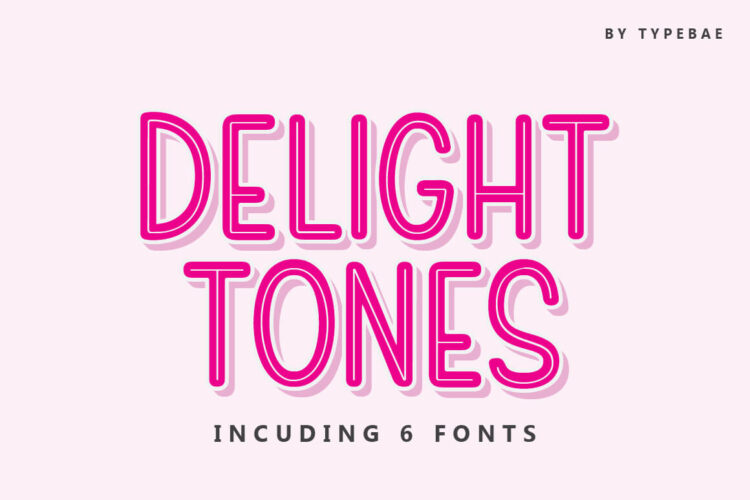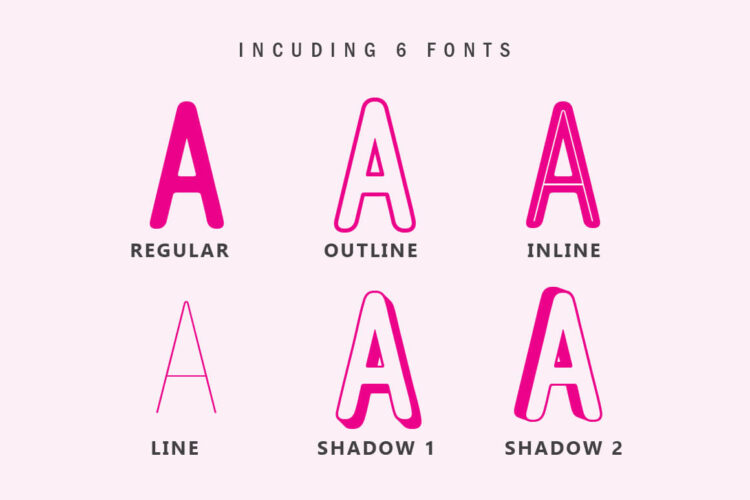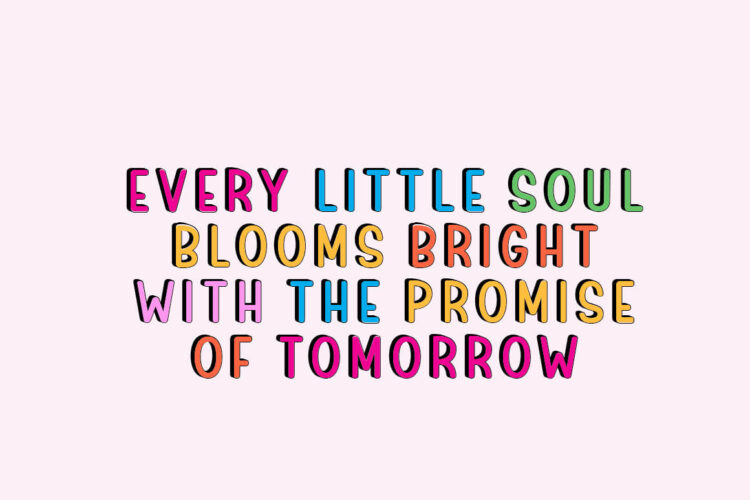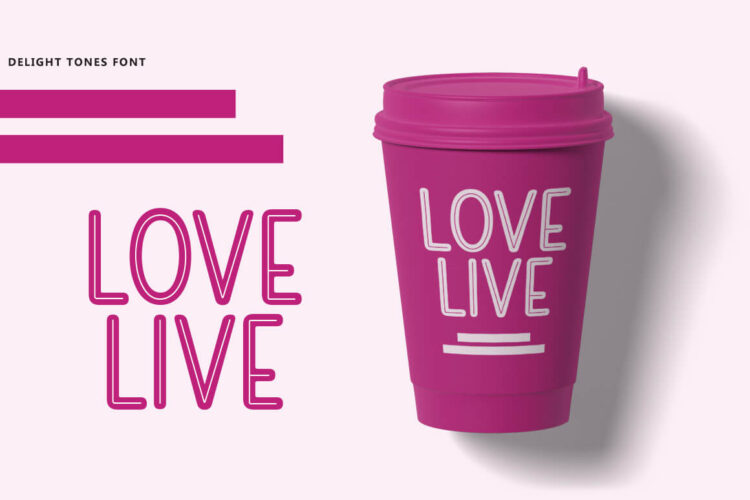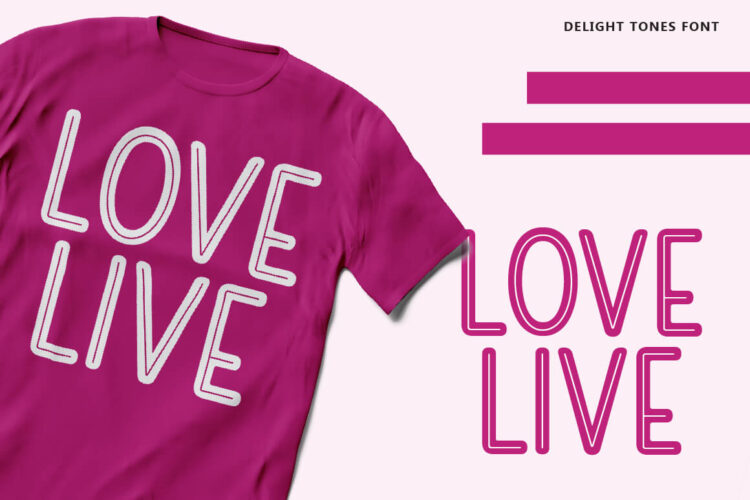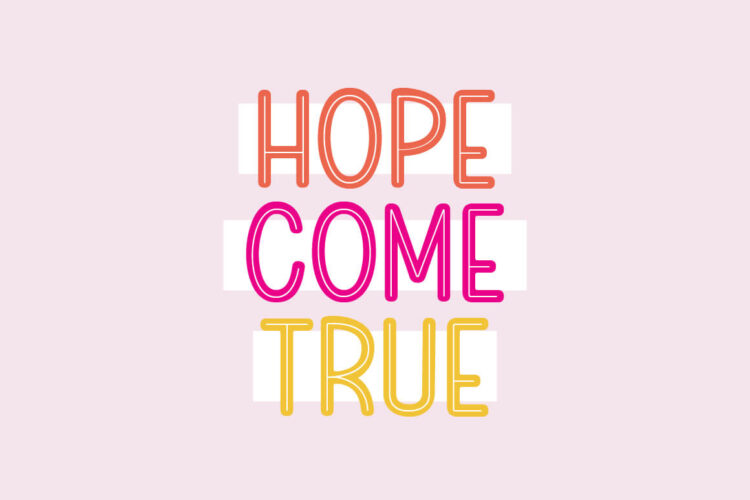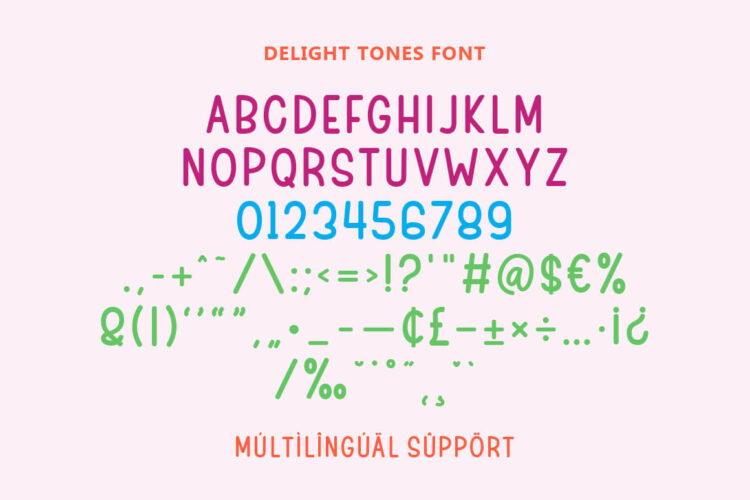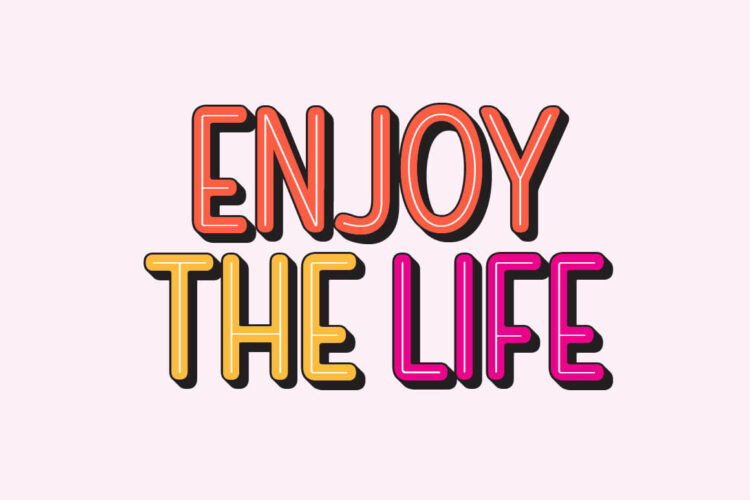
Delight Tones is a fun hand drawn display font. It has a playful and quirky touch, allowing for a delightful and amusing feel. Delight Tones is well-suited for designs that are fun and lighthearted, such as school-related designs, birthday invitations, summer-themed designs, holiday projects, t-shirt designs, crafts, stickers, sublimation, and much more.